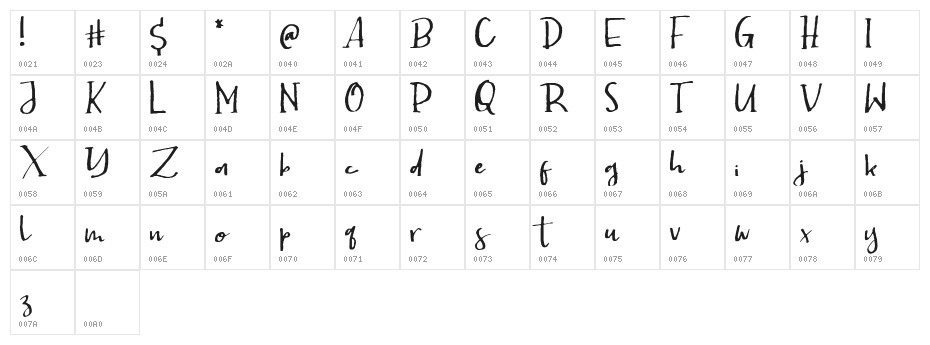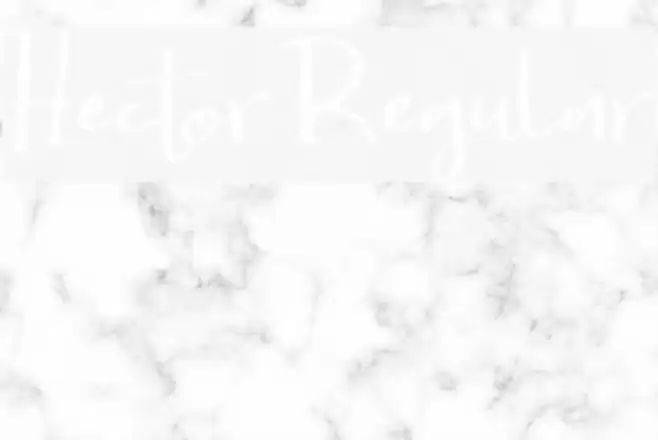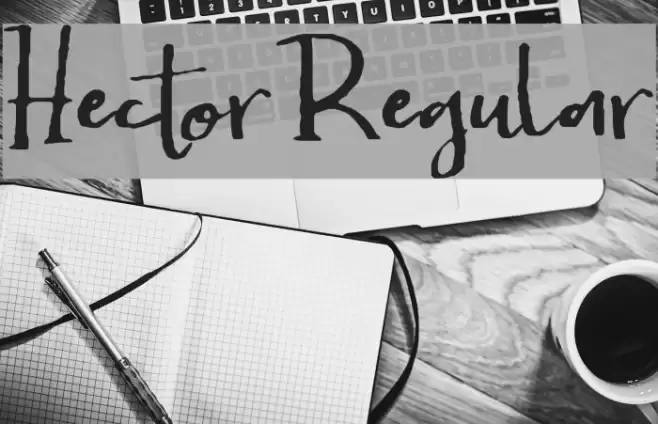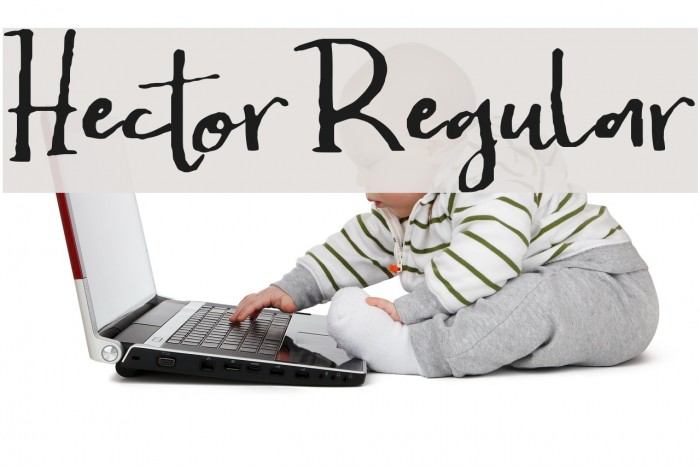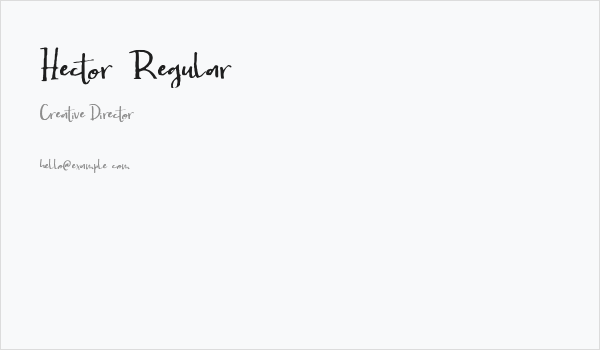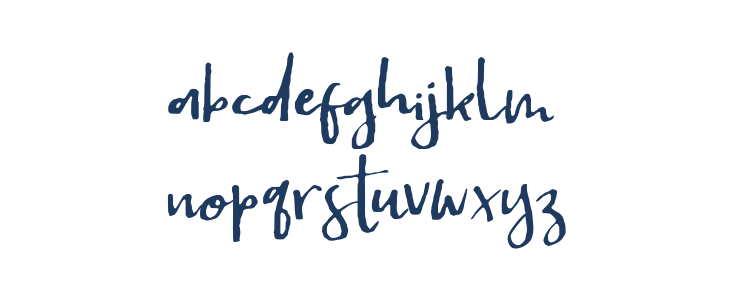
Hector-Regular Font
Hector-Regular Description
This font features a distinctive handwritten style with a playful and artistic flair. The uppercase letters are bold and slightly irregular, giving a sense of spontaneity and creativity. The lowercase letters maintain a consistent flow, with some characters extending below the baseline, adding to the font's dynamic appearance. The numerals are clear and legible, while the special characters complement the overall style with their unique, hand-drawn look. This font's organic and informal nature makes it ideal for projects that require a personal touch or an artistic edge.